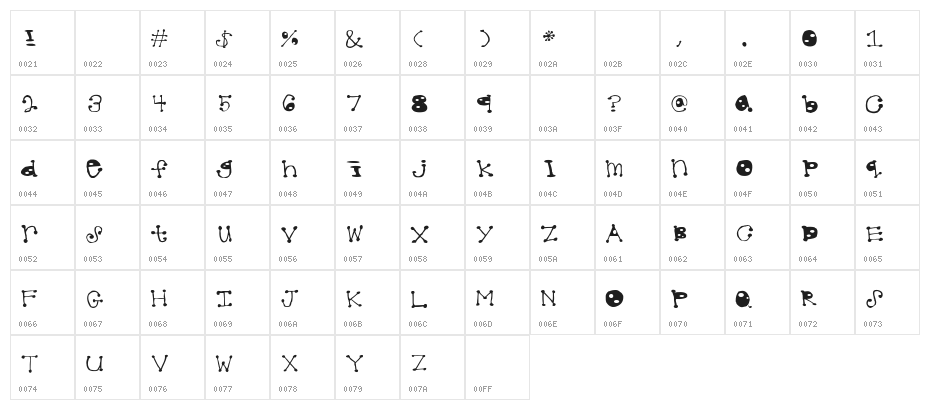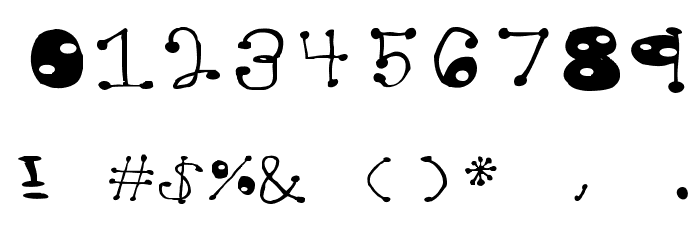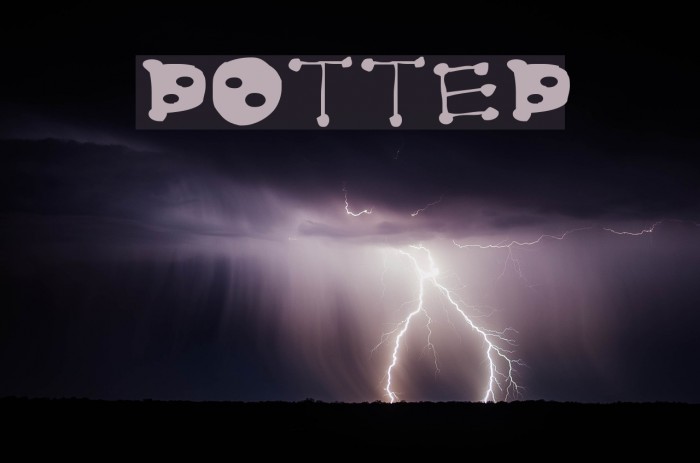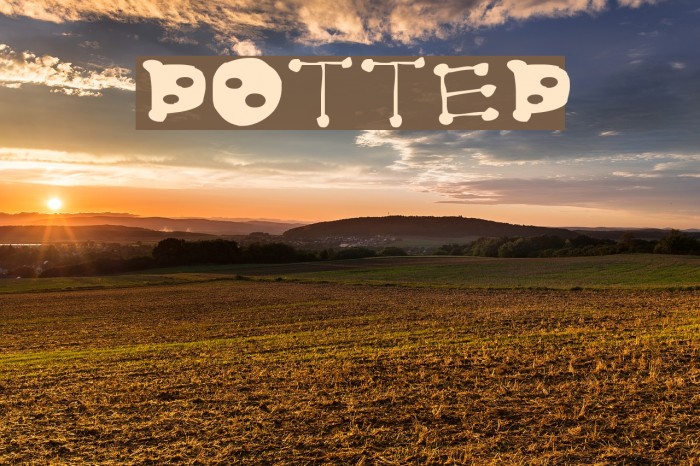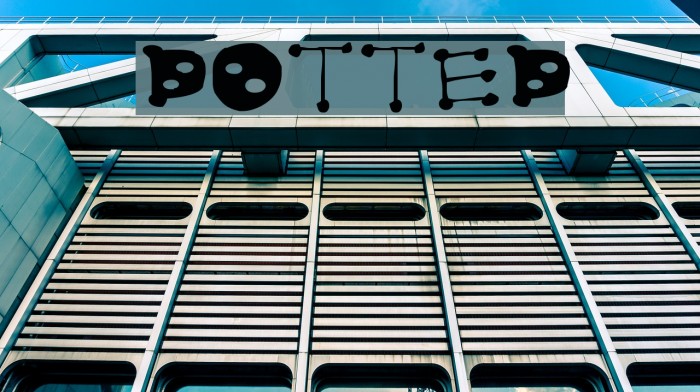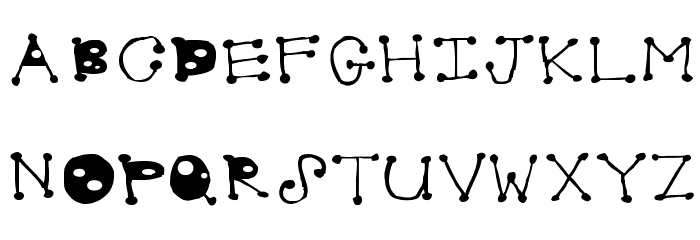
dotted Font
dotted Description
This playful and whimsical font features a unique dotted design that adds a sense of fun and creativity to any project. The characters are formed with bold, rounded dots connected by thin lines, creating a distinctive and eye-catching appearance. The uppercase and lowercase letters maintain a consistent style, with the dots varying in size to add visual interest. Numbers and special characters are also designed in the same playful manner, making this font versatile for various uses. The overall look is both modern and decorative, perfect for projects that require a touch of whimsy and originality.
| Overall Style | Whimsical, Playful, Modern |
| Use Case | Headlines, Logos, Creative projects |
| Proposed Projects | Ideal for children's books, playful branding, party invitations, and creative posters. |